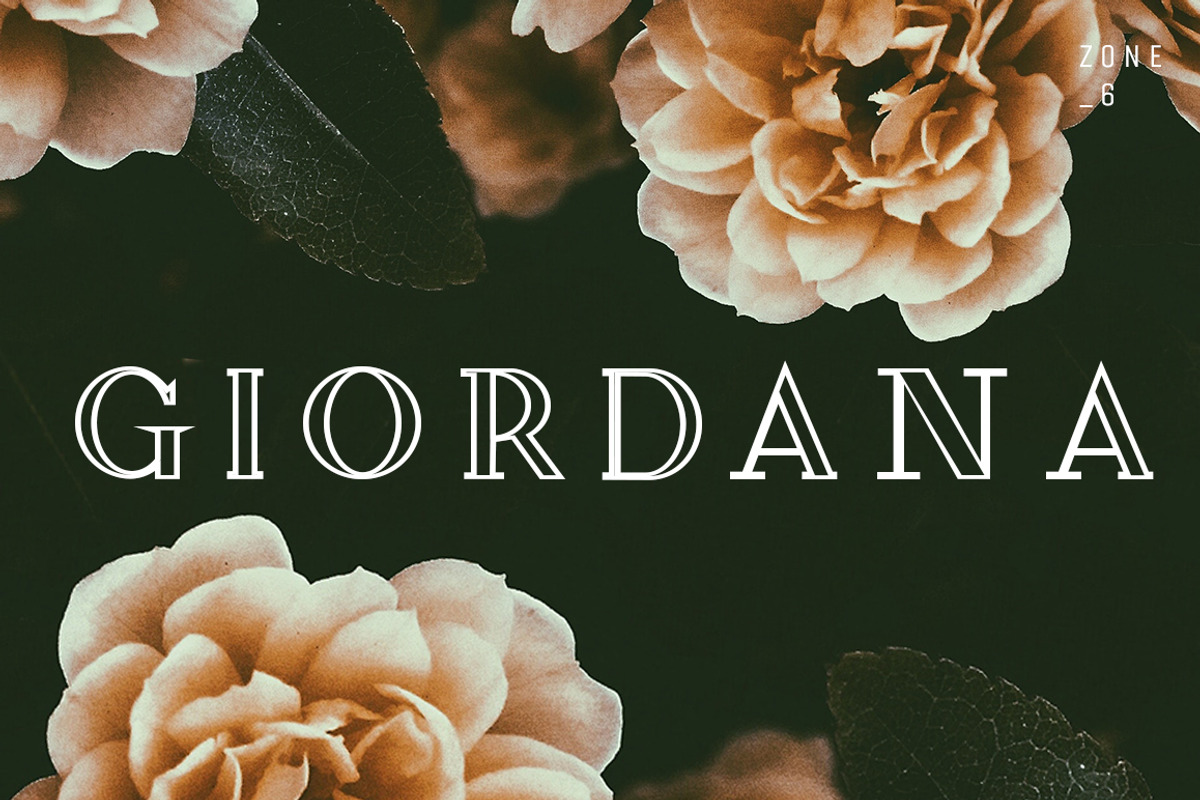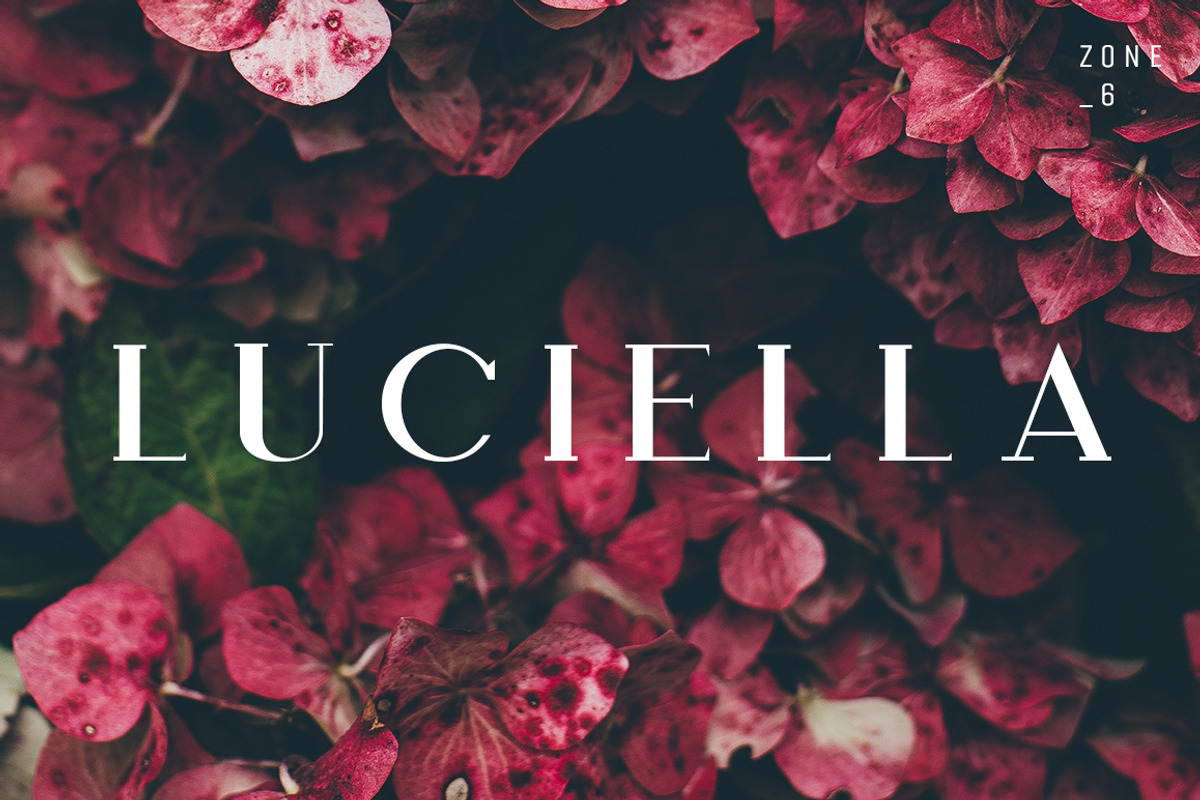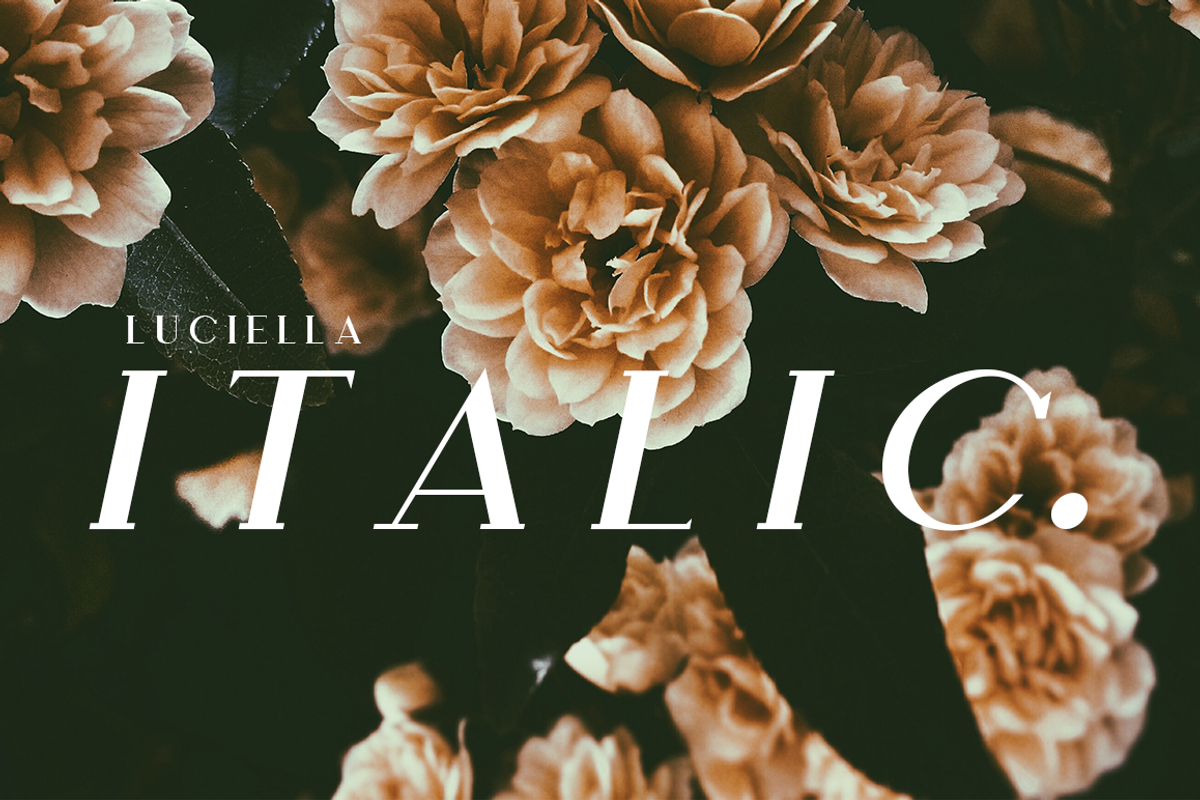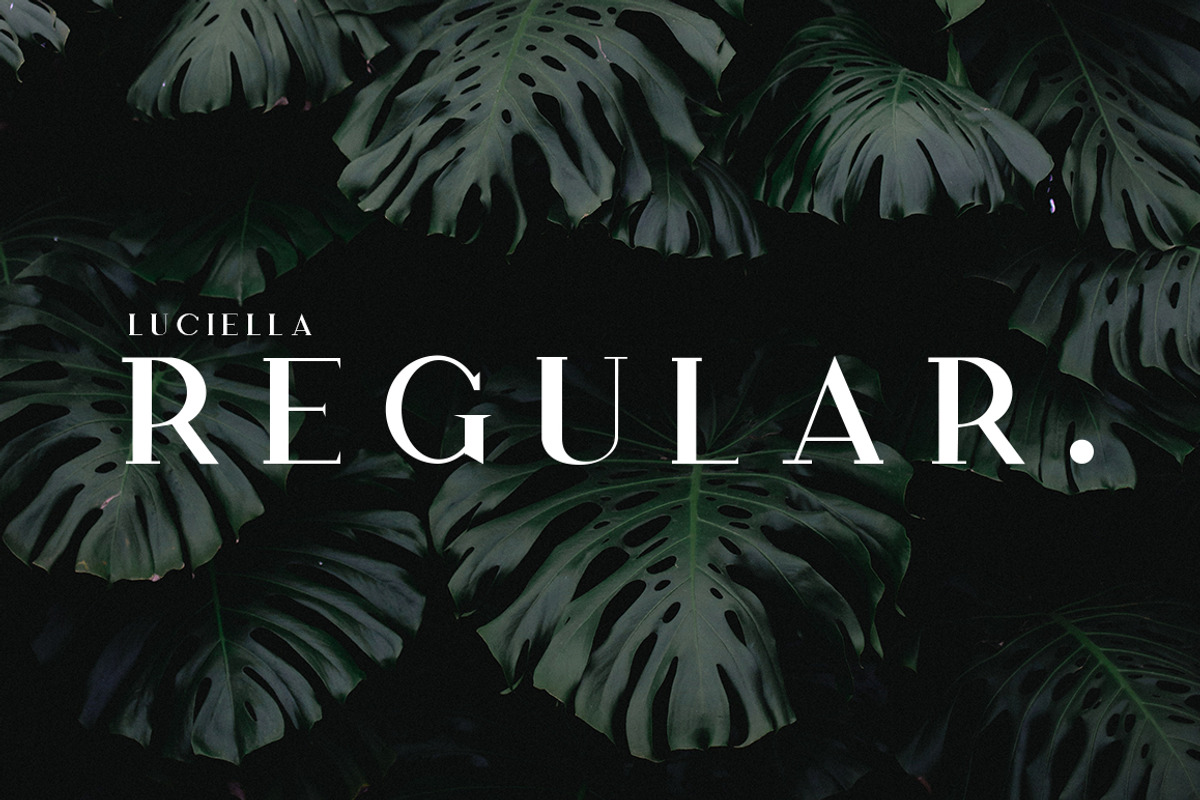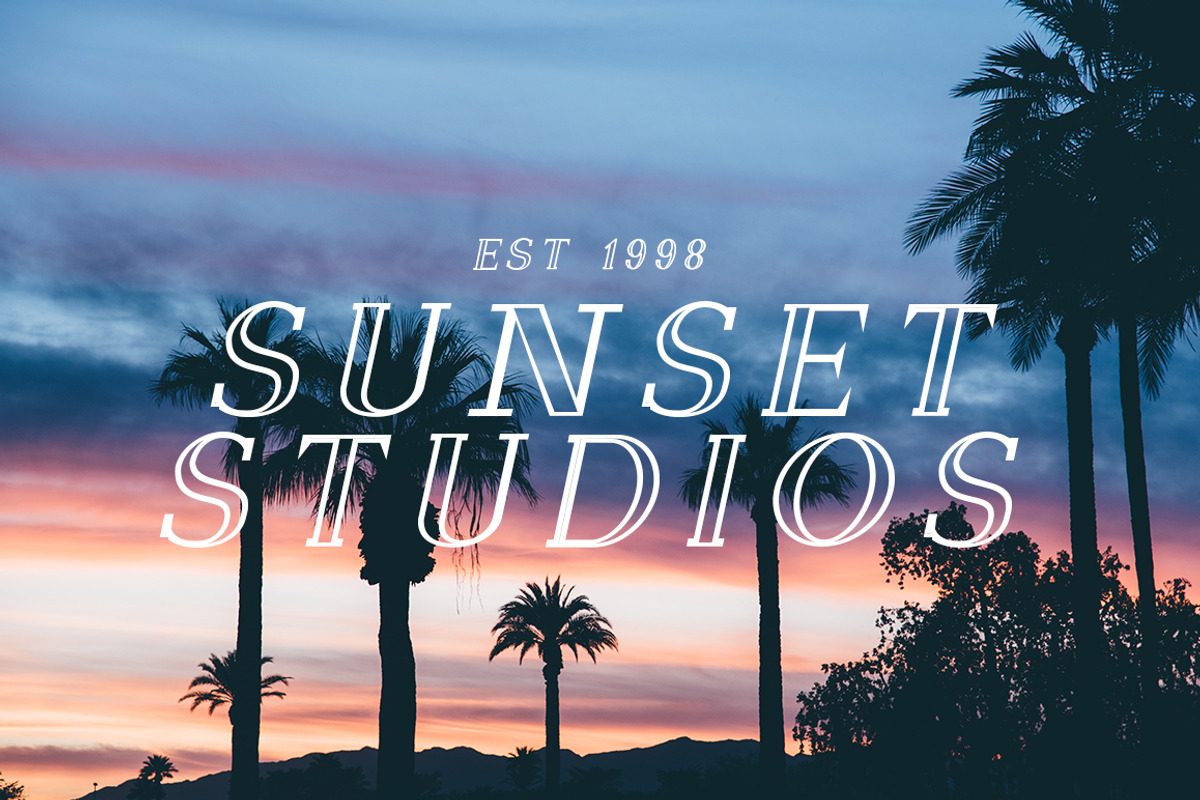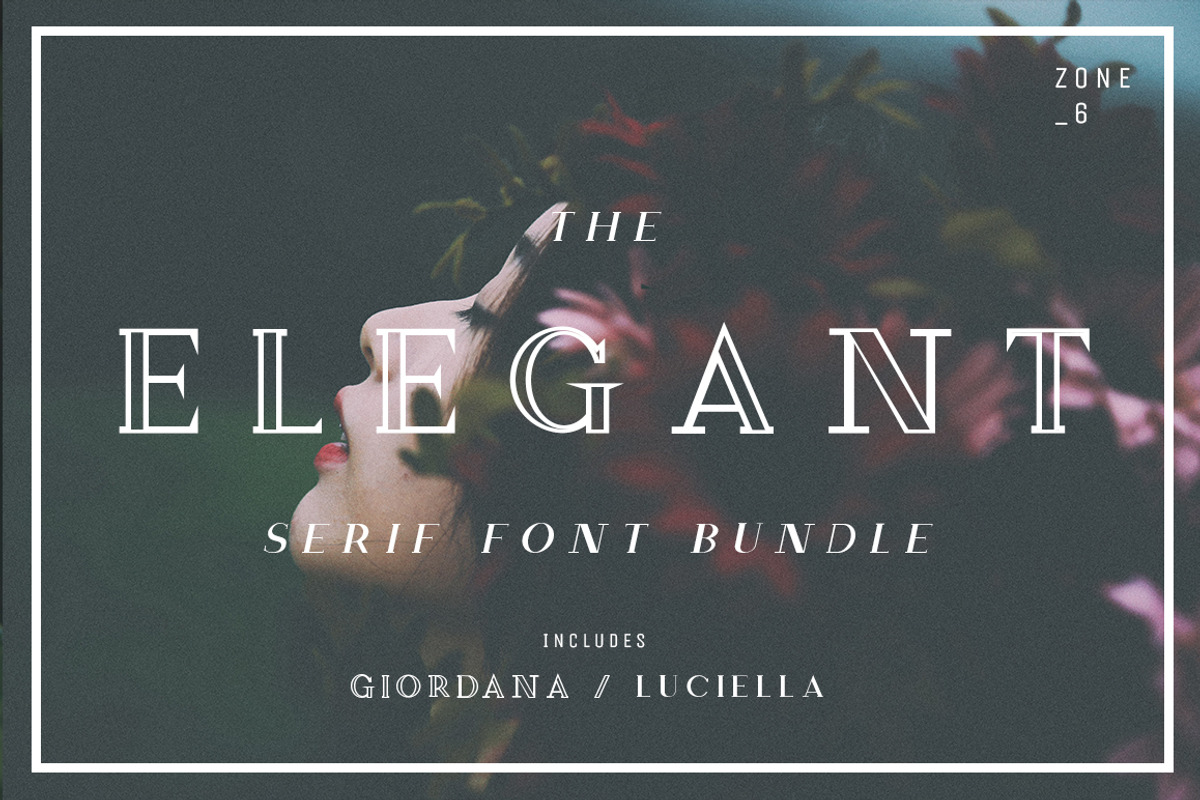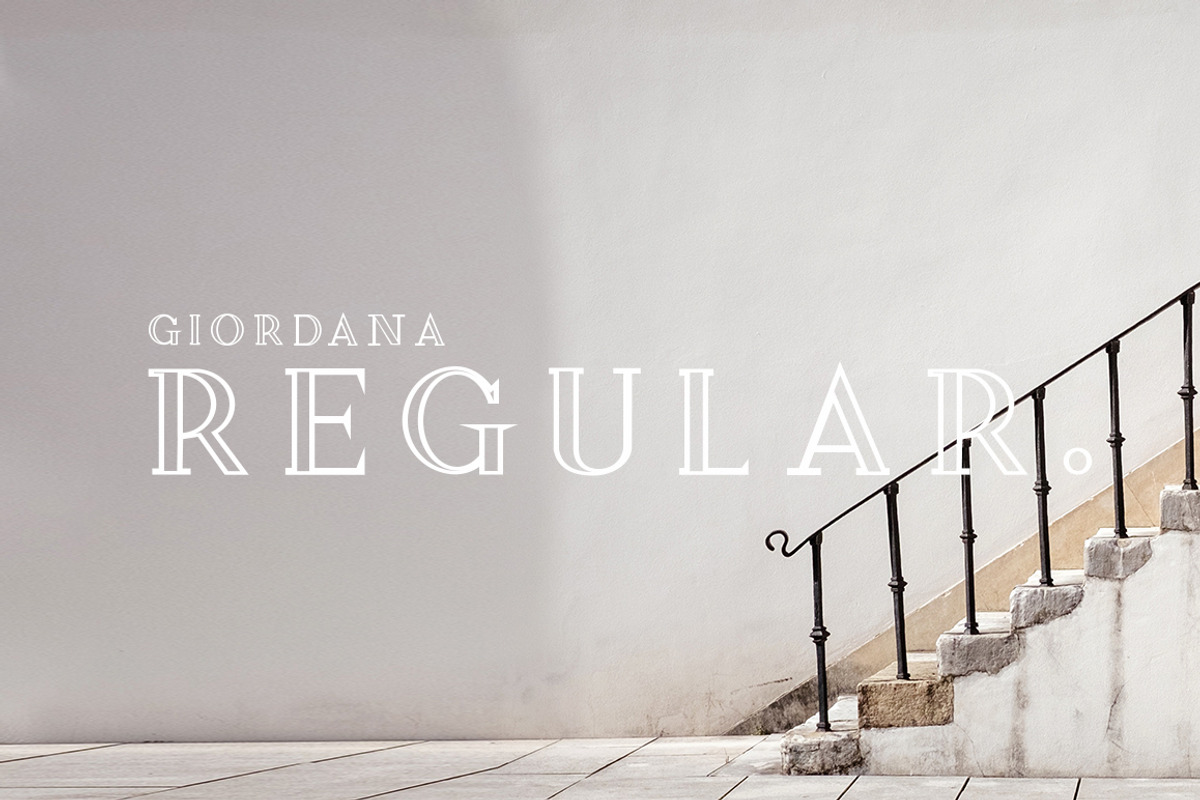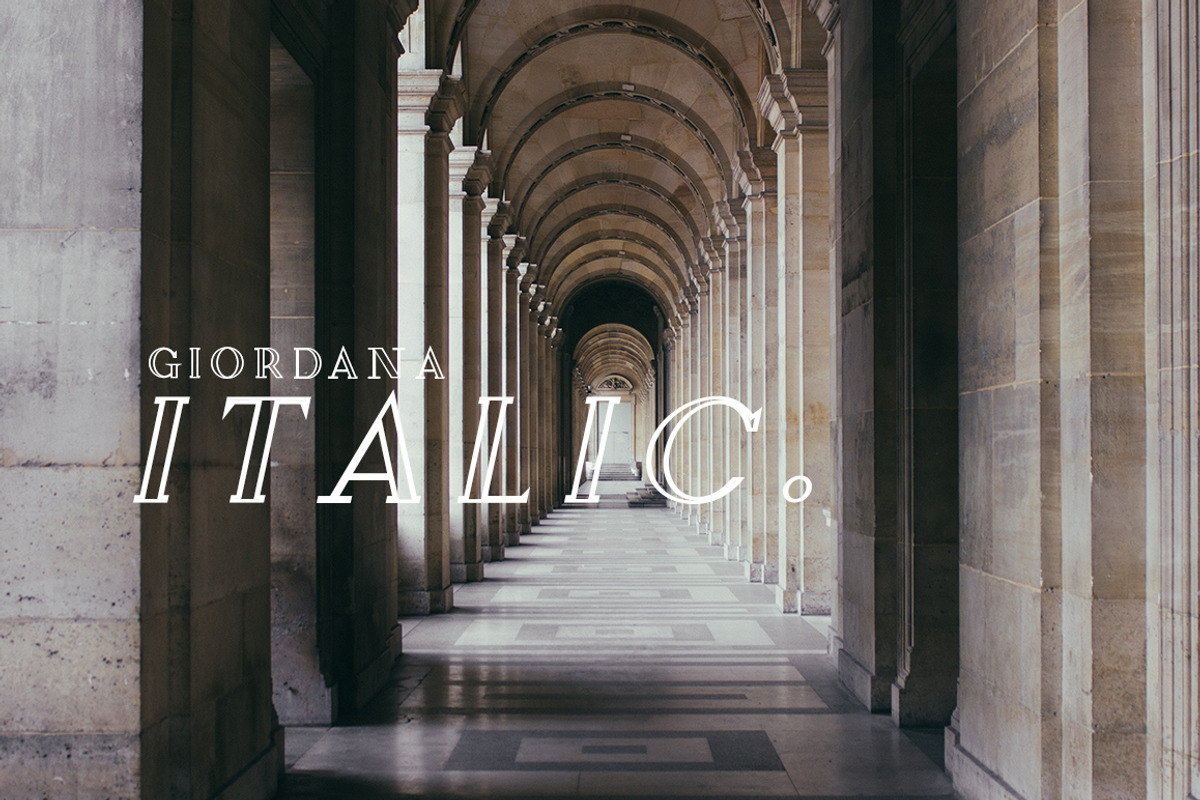
The Elegant Serif Font Bundle
Giordana is a striking yet subtle outline serif font. Her Italianate style instantly adds a luxurious feel to any project you choose to use her for. It's perfectly weighted lines are balanced alongside the classic serifs, helping you create stunning, up-to-date, yet timeless designs.
Luciella is as passionate and poetic as her Italian roots. A seamless blend of thick and thin lines compliment one another perfectly, while the serifs add a timeless and classic aspect.
Each of these fonts work beautifully together to create stunning designs, including branding, print, editorial and more.
Optimized kerning for aesthetic and highly readable texts
If you’re looking for a sophisticated collection containing everything you need to create luxurious designs then the Elegant Serif Font Bundle is for you.
Why The Elegant Serif Font Bundle is worth a look
The Elegant Serif Font Bundle by Zone 6 fits naturally into Branding, posters, packaging, typography.